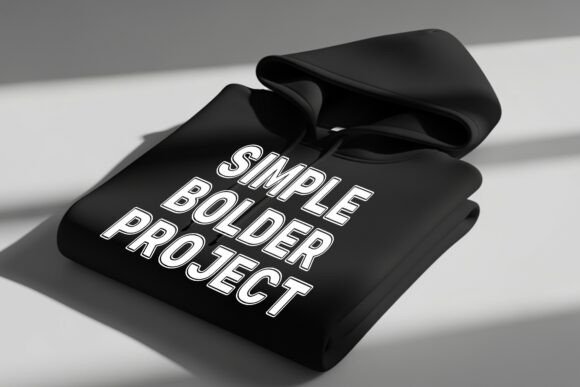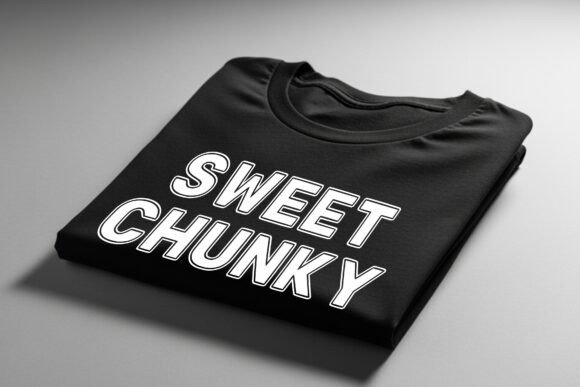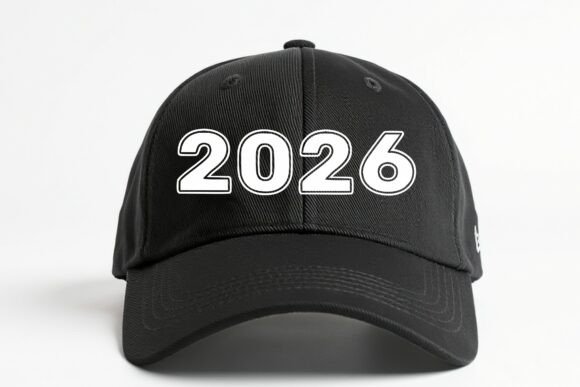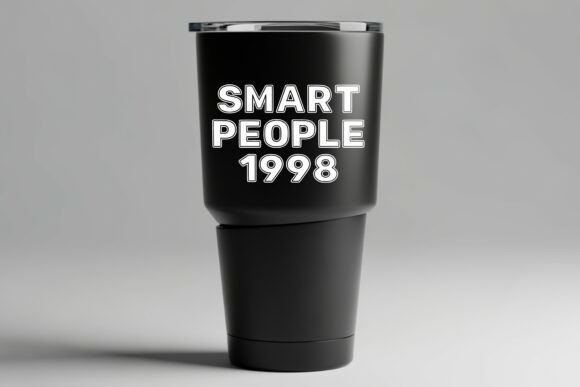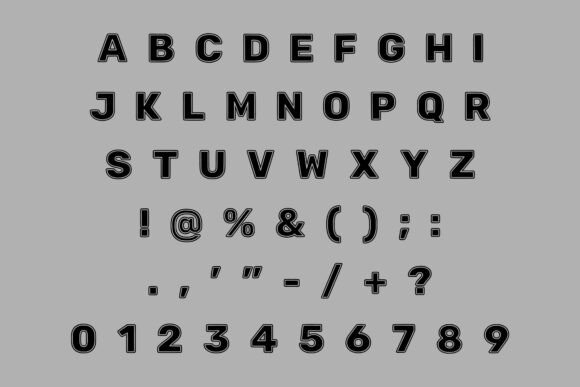
Introduction to Loved Bold Font Font
Fonts play a crucial role in design, and the Loved Bold Font font is a typeface that brings both character and versatility to any project. Whether you’re working on a branding project, a website, or a print design, the Loved Bold Font font offers a unique style that can elevate your work.
Loved Bold is a strong and expressive display font featuring thick bold letterforms combined with clean outline accents.
Designed to stand out, this font is perfect for eye-catching headlines, branding, posters, and merchandise designs Its modern yet slightly retro feel makes it versatile for both contemporary and vintage-inspired projects.
The Loved Bold Font font is more than just a typeface – it’s a design tool that helps you communicate your message with style and clarity. Its unique character set and versatile design make it suitable for a wide range of applications, from elegant invitations to bold headlines.
With its carefully crafted letterforms and balanced proportions, the Loved Bold Font font ensures readability and visual appeal across all mediums.
What makes Loved Bold Font font special?
The Loved Bold Font font stands out with its unique design, exceptional readability, and versatility across various design applications.